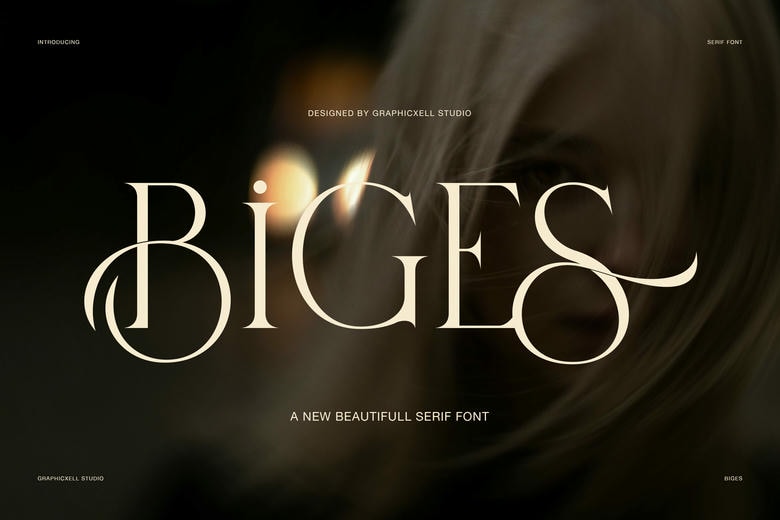
Biges Font
Biges has clean serif details and graceful swashes that flow across some letters. These features make simple words look stylish and eye-catching. The font feels soft, yet it still makes a strong impression.
The uppercase letters are slim, balanced, and elegant. Wide spacing gives each word a calm and refined feel. This font works well for logos, headlines, and brand names that need a polished look.
Biges Serif Font